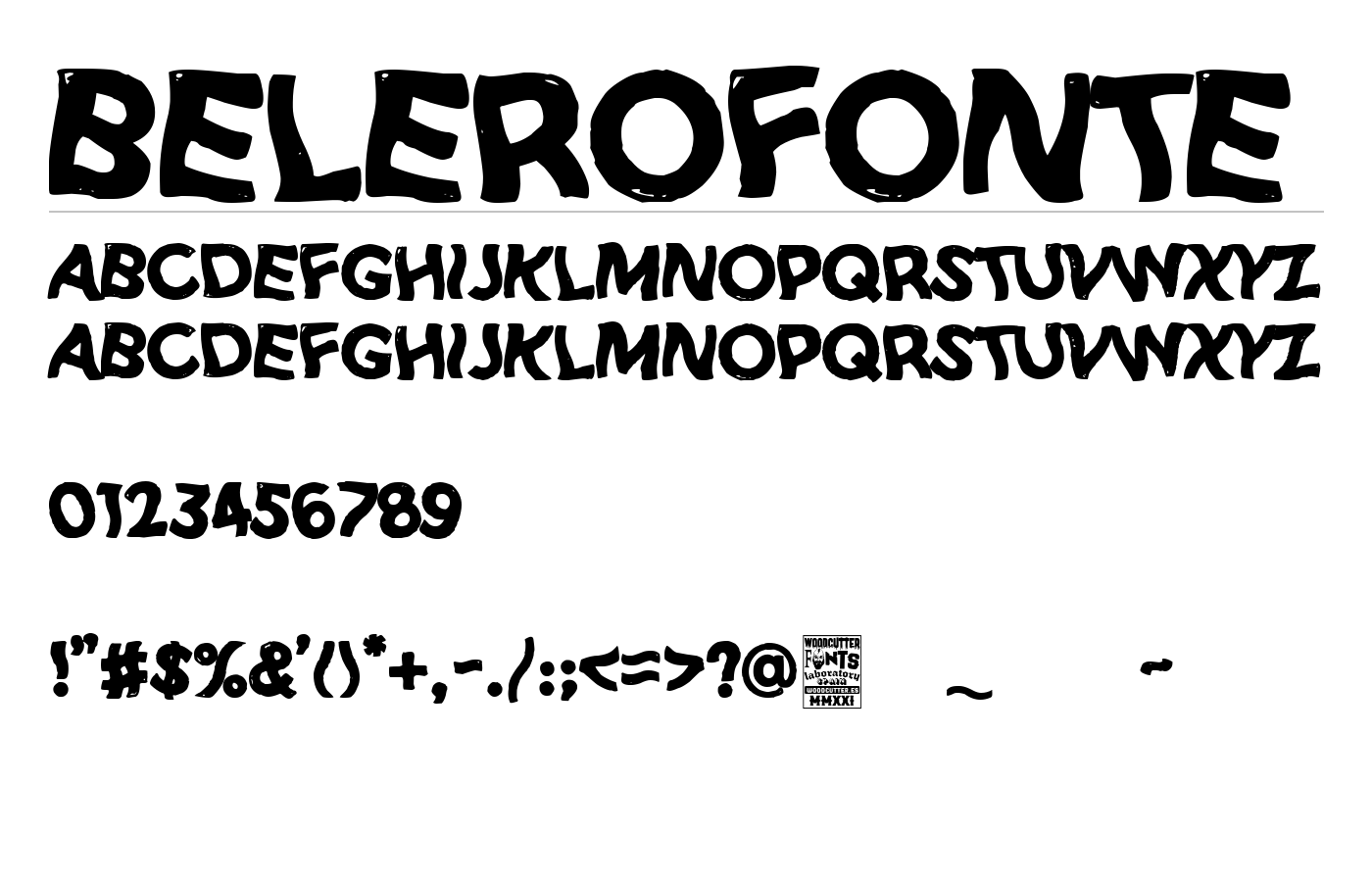
Belerofonte is a bold, hand-drawn sans serif font with a playful and informal vibe, featuring uneven strokes and irregular shapes that evoke a casual, artistic feel. Its slightly condensed width and quirky letterforms make it perfect for creative projects, posters, and branding that seek a fun, approachable personality. This font works especially well for designs that want to stand out with a unique and lively touch.
Belerofonte Font
About Belerofonte Font